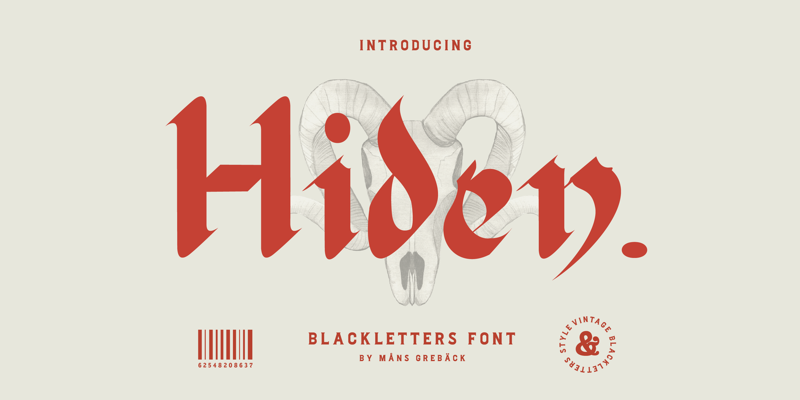
Hiden
Måns Grebäck · Regular · Hiden
NOTE: This font is for PERSONAL USE ONLY! To purchase a commercial license, visit: https://www.mansgreback.com/product/hiden Hiden is a calligraphic font that evokes a medieval feel with its unique script style. This font is perfect for creating a sense of antique charm and tradition. The strokes are meticulously crafted to give a hand-written look to your designs, making them one-of-a-kind. For questions, please visit https://mansgreback.com/faq